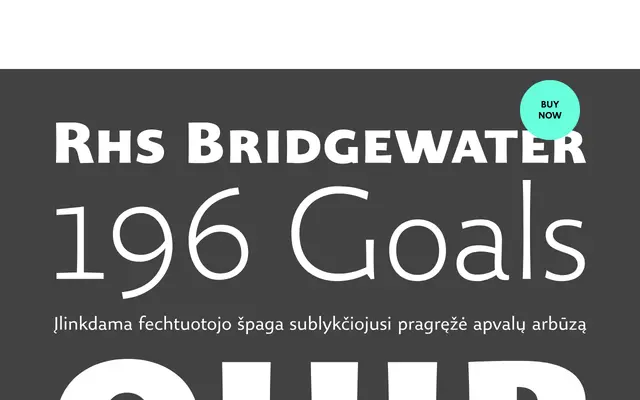
Organon Sans
G-Type · Nick Cooke
A characterful sans with tapered, flared stems and a generous glyph set, designed as one half of the Organon type system alongside its serif companion.
Organon Sans pairs with Organon Serif, sharing similar metrics and stem widths to create a cohesive typographic suite. Six weights run from Light to UltraBlack, each with small caps and a full suite of OpenType features including three style sets, lining and old style numerals in proportional and tabular cuts, and standard and discretionary ligatures. Latin coverage spans West European, Central and East European, Baltic and Turkish languages.
Flared, tapered stems give Organon Sans a structure closer to humanist tradition than geometric or grotesque models, with letterforms that draw on calligraphic origins while remaining clean and upright.